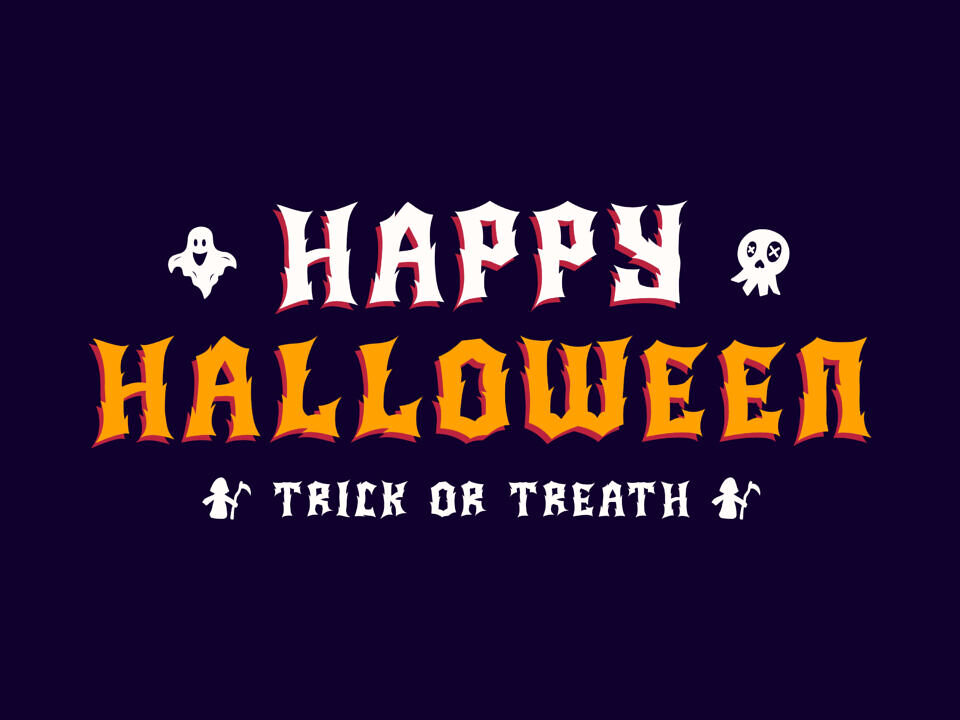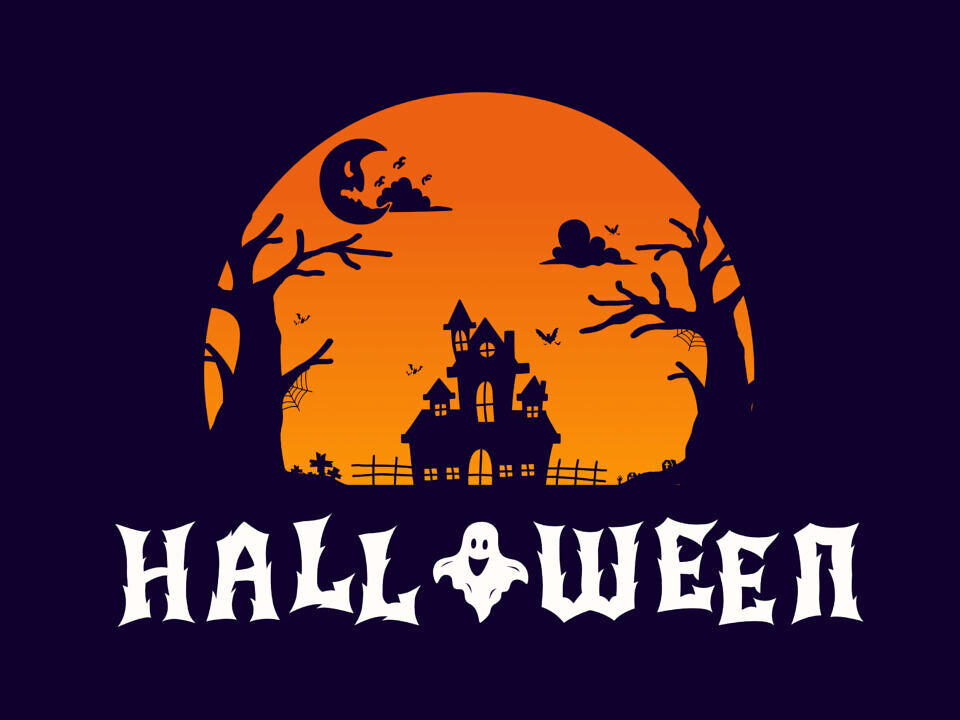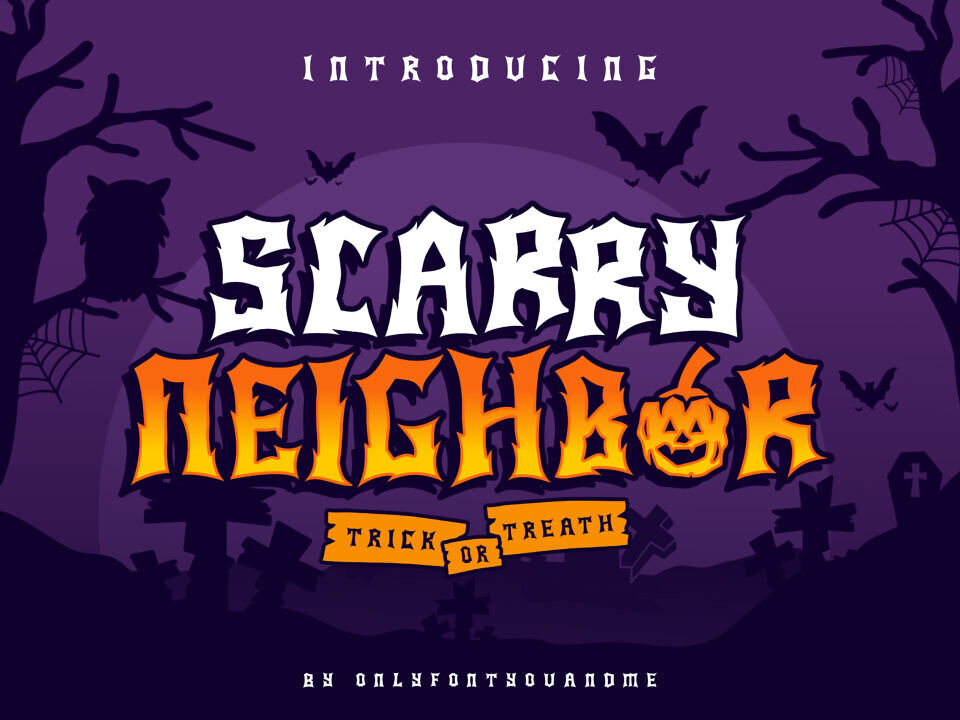
Scary Neighbor Font
Scary Neighbor is a fun and playful duo font (display and dingbats) with a scary horror theme. Masterfully designed to become a true favorite, this font has the potential to bring each of your creative ideas to the highest level!